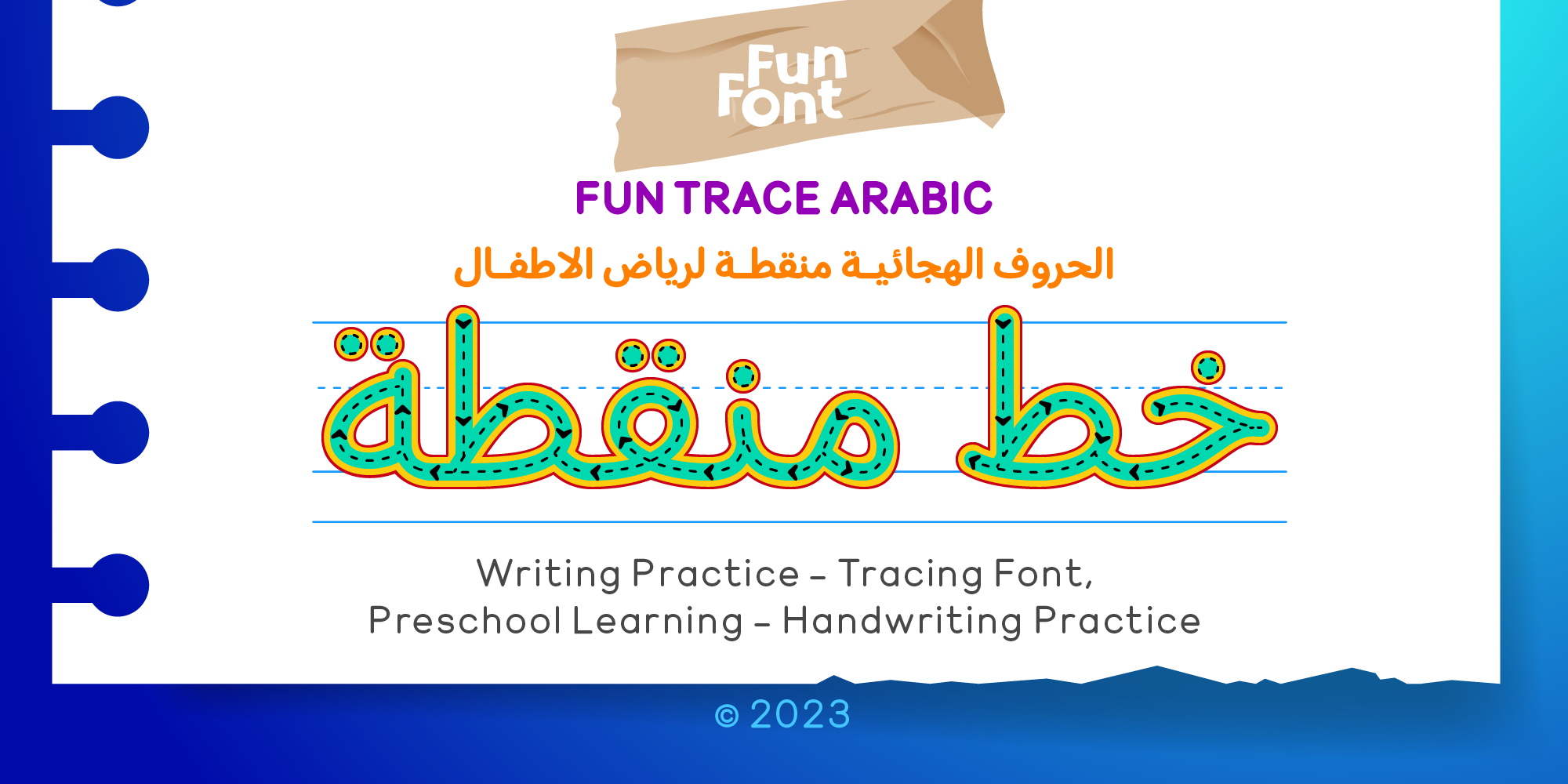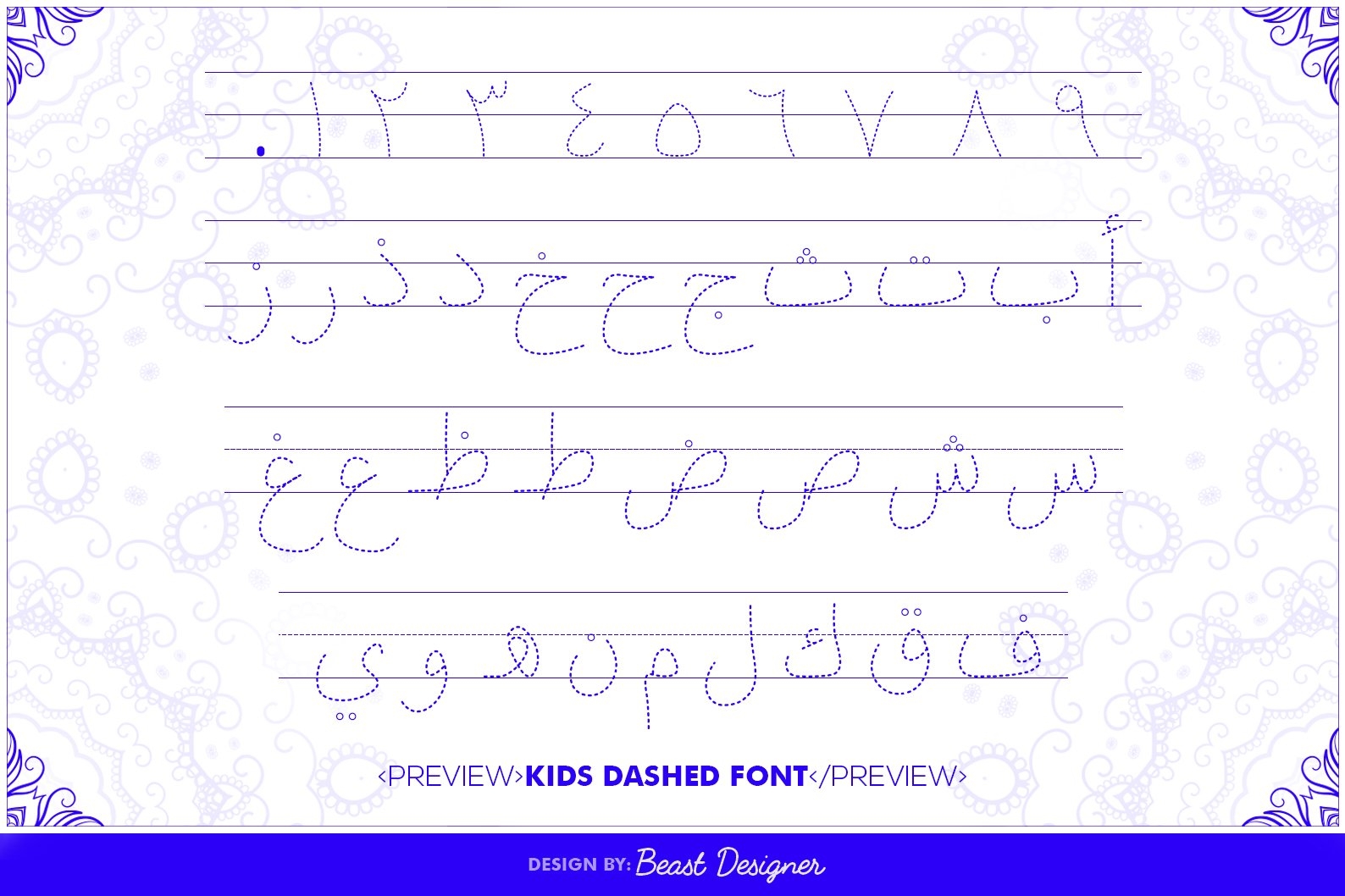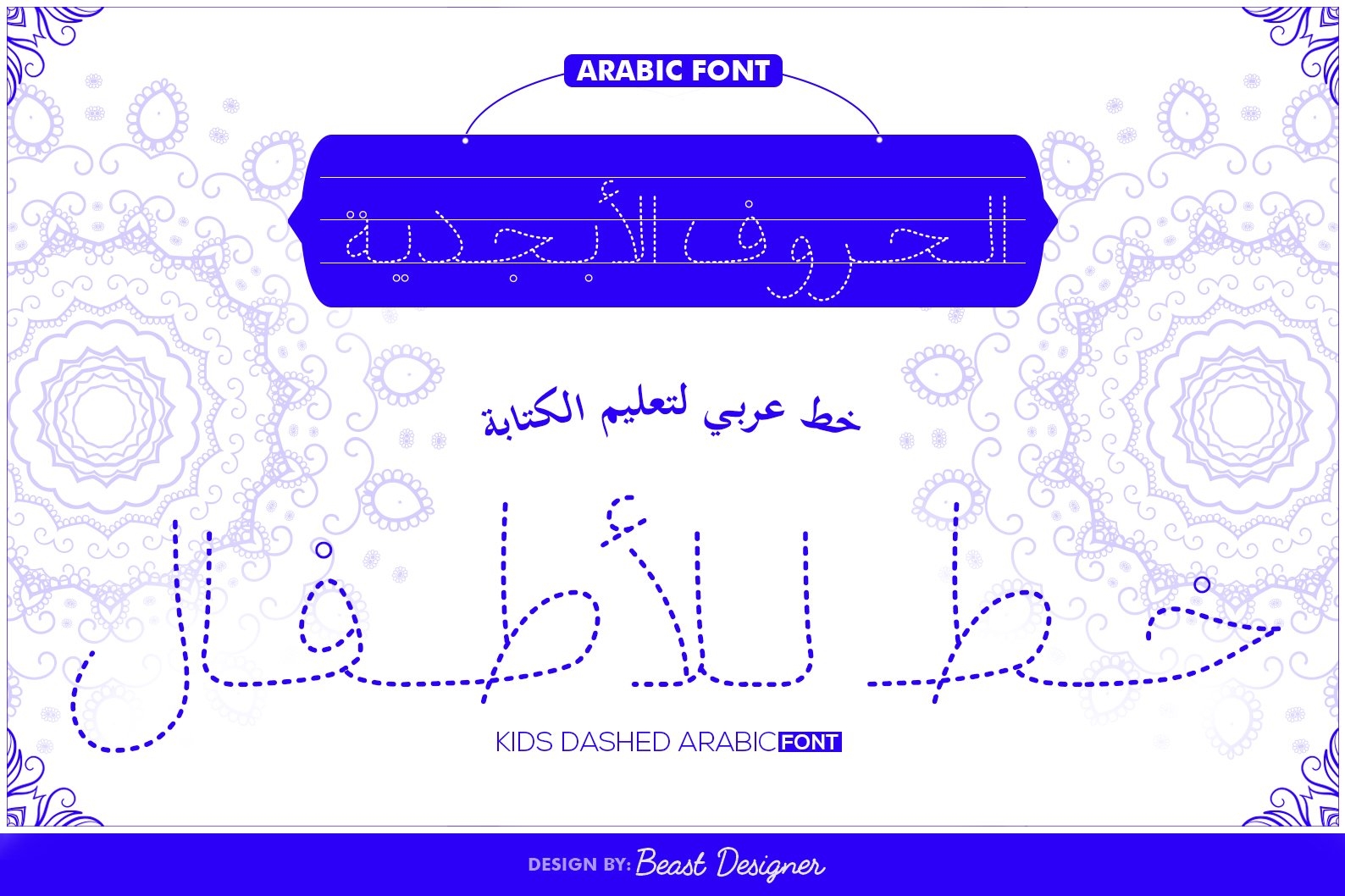
Finding the right tools for learning Arabic can be a challenge, especially when it comes to writing. A good font can make a significant difference in mastering the script. Many learners seek resources that are both effective and accessible.
Many websites offer Arabic tracing fonts for free download. These fonts are designed specifically for learners, providing dotted lines that guide users in forming each letter correctly. This feature is particularly helpful for beginners.
Using an Arabic tracing font can enhance your learning experience. It encourages repetition and helps reinforce muscle memory, making it easier to write fluently over time. Plus, practicing with these fonts can be fun and engaging.
When searching for an Arabic tracing font, look for options that include various styles and sizes. This variety allows you to choose what best suits your learning pace and style. Many resources also provide additional materials to complement your practice.
Incorporating an Arabic tracing font into your study routine can significantly improve your writing skills. With consistent practice, you’ll find yourself becoming more confident in your ability to write in Arabic.
Exploring the world of Arabic tracing fonts opens up new opportunities for learning. By downloading these resources, you can enhance your skills while enjoying the process of mastering a beautiful language.